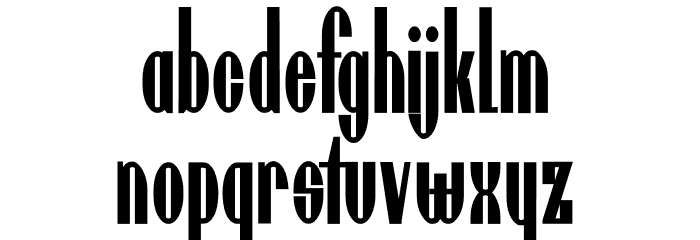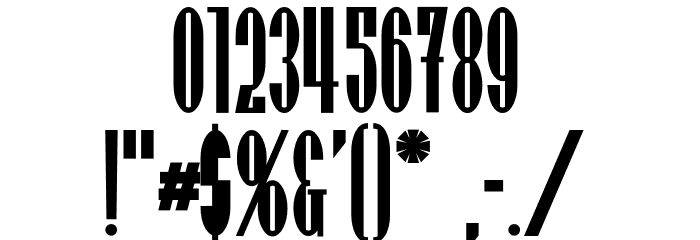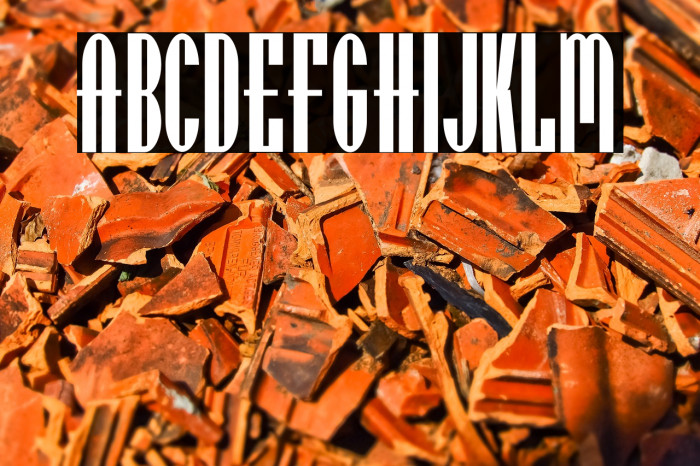
UtusiStar-Bold Font
This font features a bold and striking design with tall, narrow characters that create a dramatic and impactful appearance. The uppercase letters are particularly elongated, giving a sense of height and elegance. The lowercase letters maintain a consistent style, with some characters like 'g' and 'j' having distinctive descenders that add to the overall aesthetic. The numerals are uniform and align well with the alphabet, ensuring readability. Special characters are designed to match the boldness of the letters, making them suitable for attention-grabbing text. The font's high contrast between thick and thin strokes enhances its visual appeal, making it ideal for display purposes.
A bold, tall, and narrow font with high contrast, perfect for dramatic displays.
- Font: UtusiStar-Bold
- Proposed Projects: Ideal for posters, headlines, branding, and any project requiring a strong visual impact.
- Character Spacing: Tight